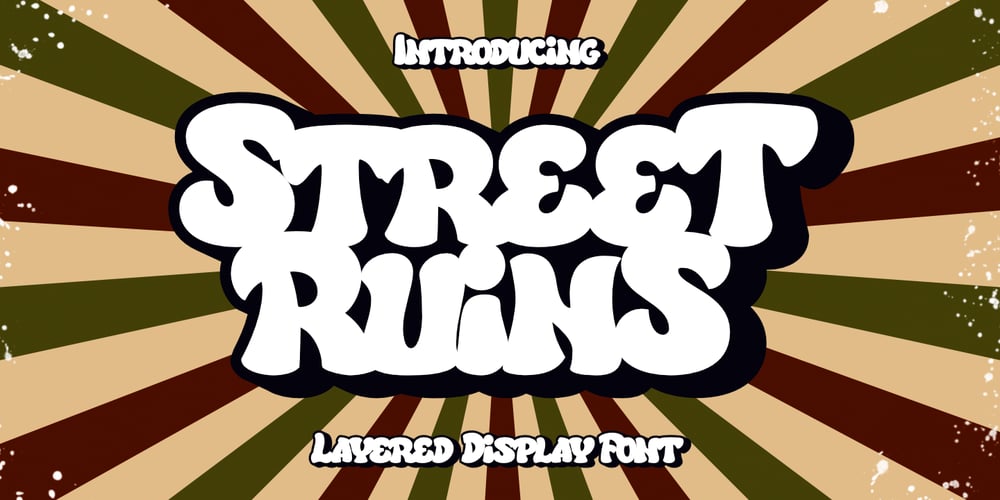
Street Ruins Font Family was designed by Prio Nurokhim Aji and published by Prioritype. Street Ruins contains 2 styles and family package options. Street RuinsA bold display font where you can give off a retro feel and a playful display style. Great for vintage theme designs, book covers, food packaging, merchandise etc. Features: Uppercase, Lowercase, Numeral, Punctuation & Multilingual. Multilingual contained: Afrikaans, Albanian, Asu, Basque, Bemba, Bena, Breton, Catalan, Chiga, Cornish, Danish, Dutch, English, Estonian, Filipino, Finnish, French, Friulian, Galician, German, Gusii, Indonesian, Irish, Italian, Kabuverdianu, Kalenjin, Kinyarwanda, Luo, Luxembourgish, Luyia, Machame, Makhuwa-Meetto, Makonde, Malagasy, Manx, Morisyen, North Ndebele, Norwegian Bokmål, Norwegian Nynorsk, Nyankole, Oromo, Portuguese, Quechua, Romansh, Rombo, Rundi, Rwa, Samburu, Sango, Sangu, Scottish Gaelic, Sena, Shambala, Shona, Soga, Somali, Spanish, Swahili, Swedish, Swiss German, Taita, Teso, Uzbek (Latin), Volapük, Vunjo, Zulu. Thanks 🙂